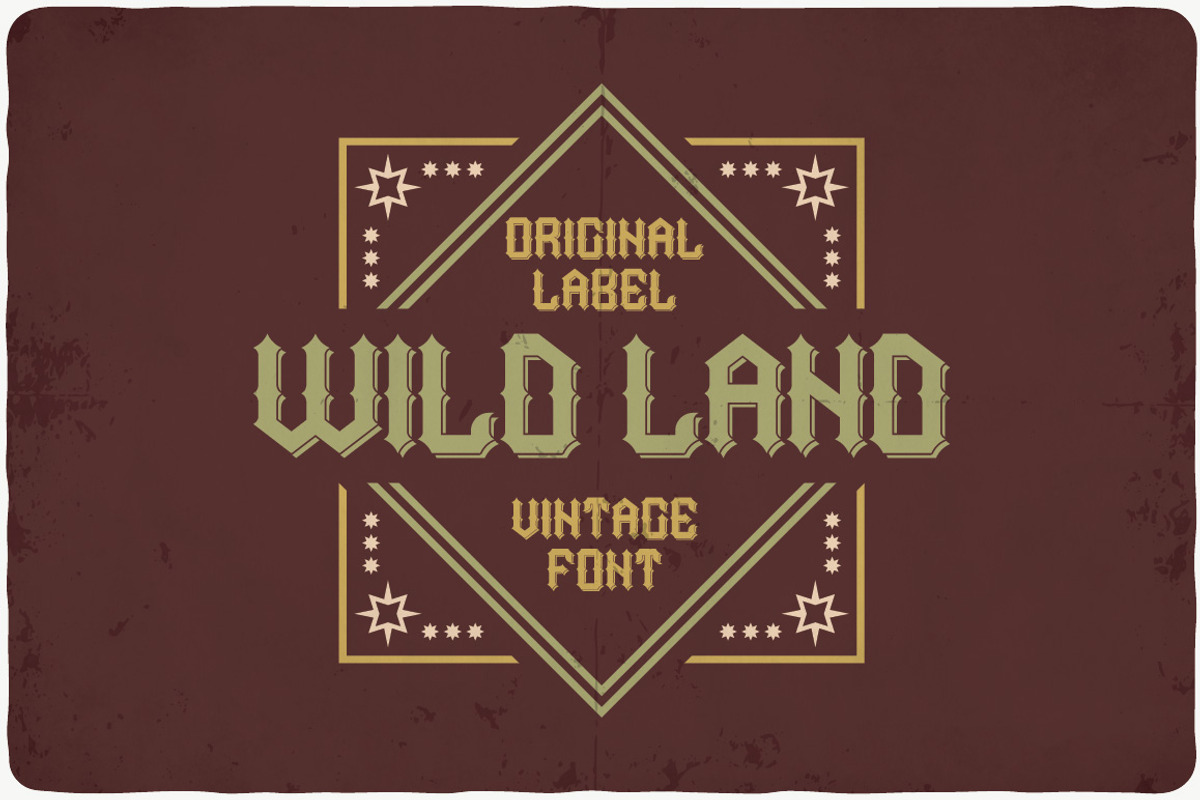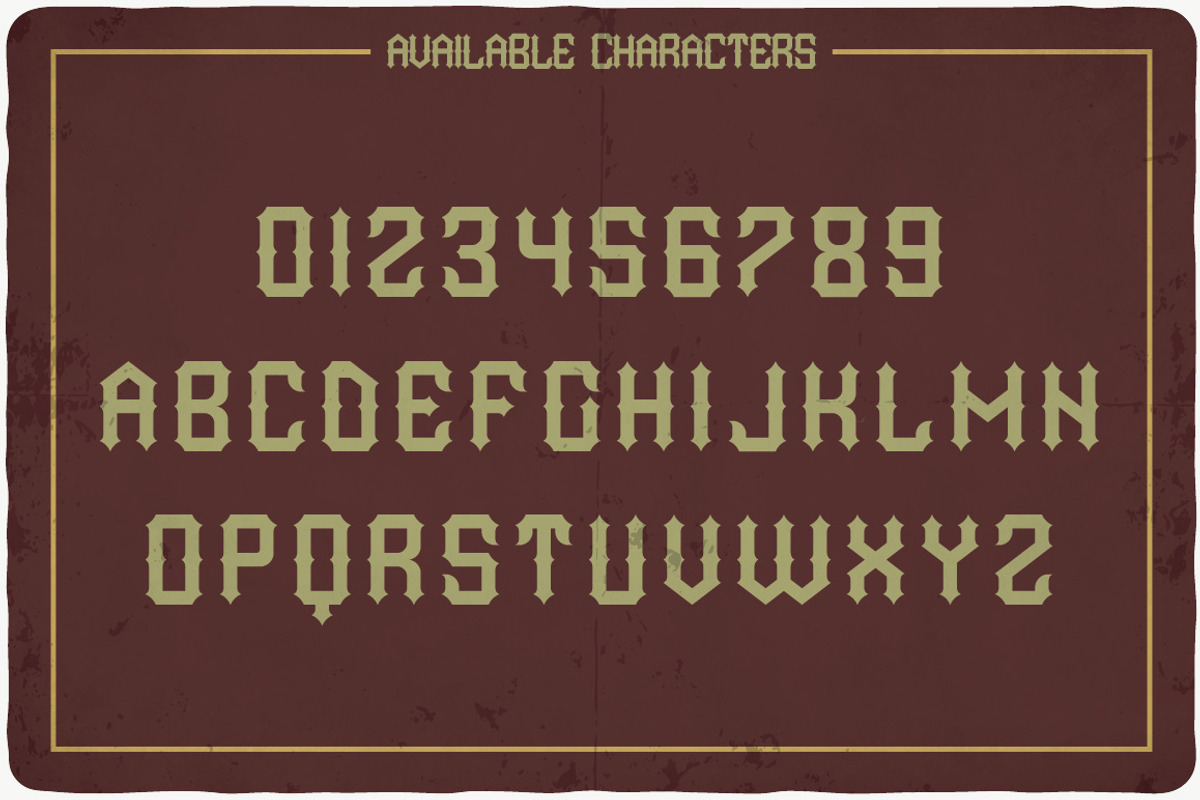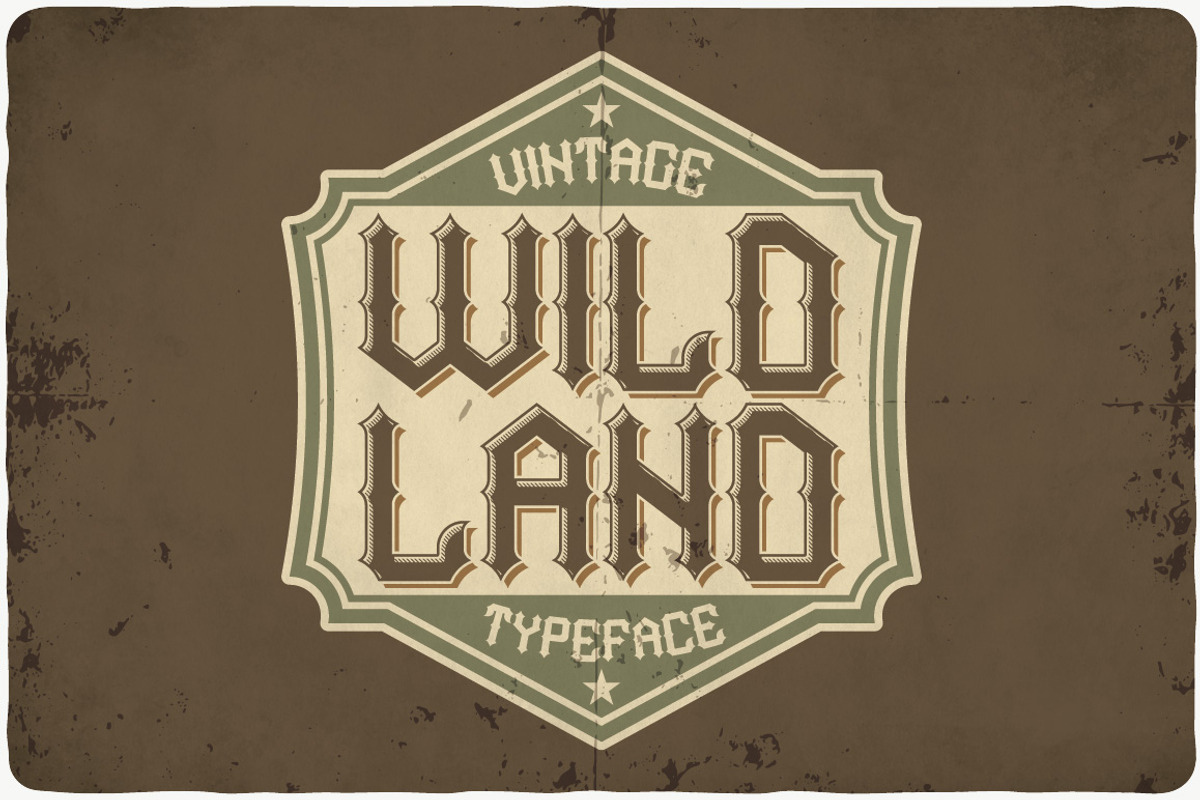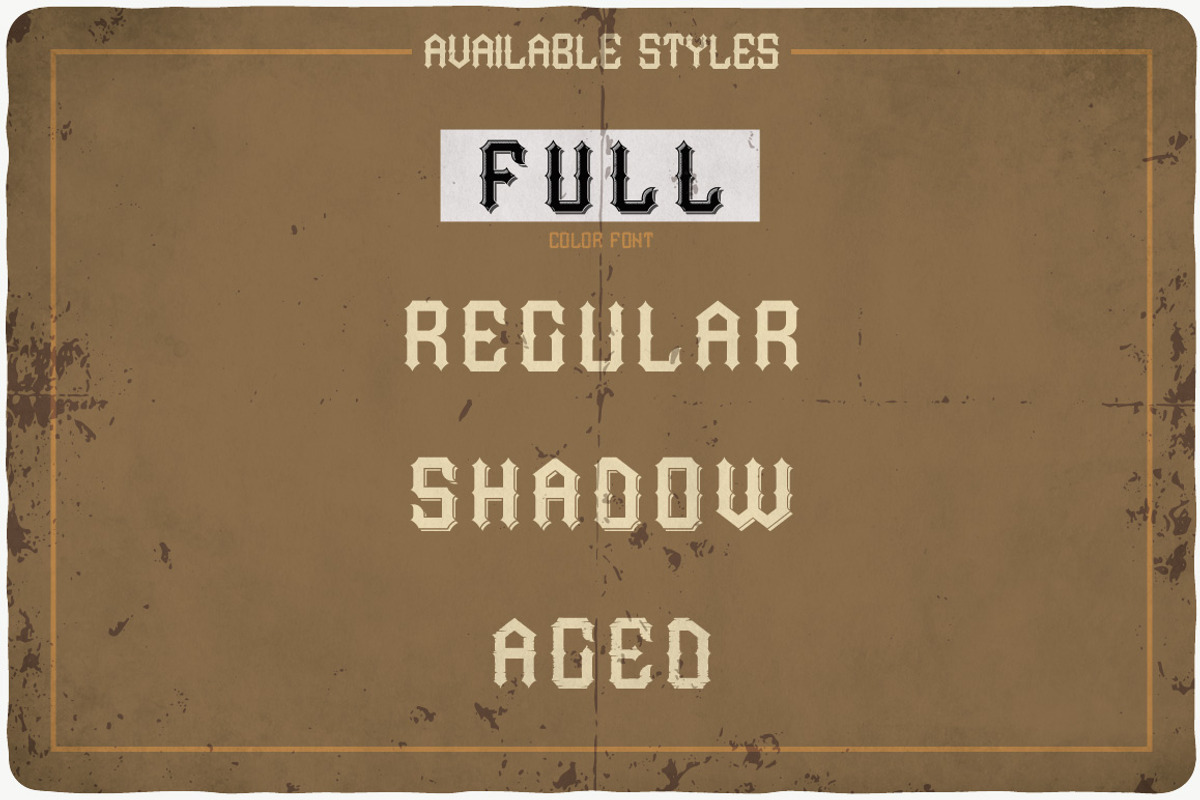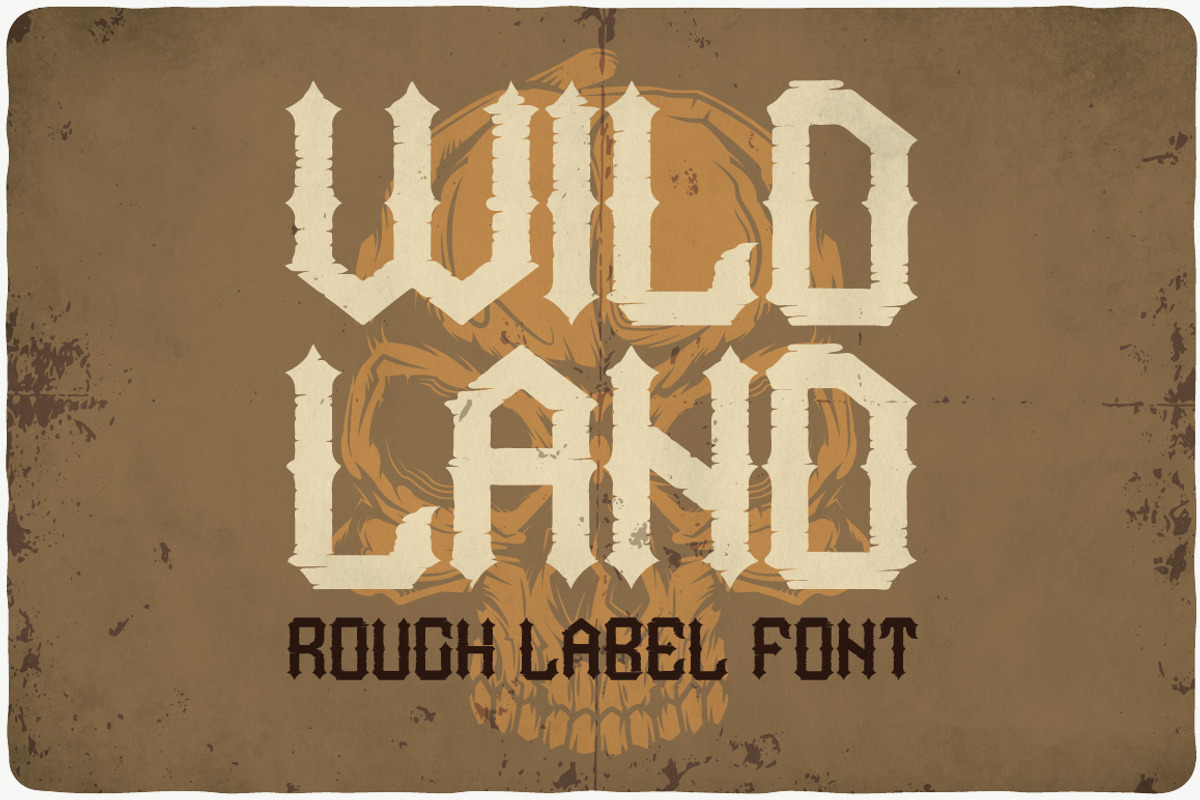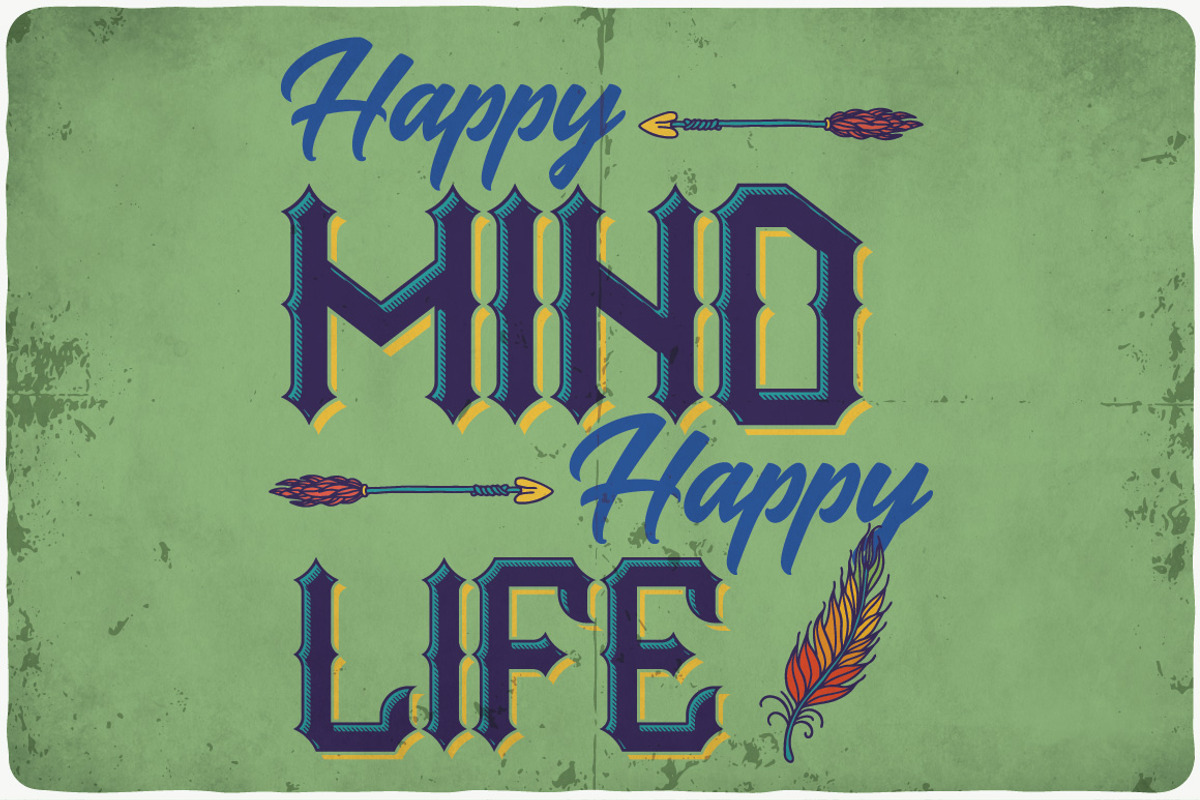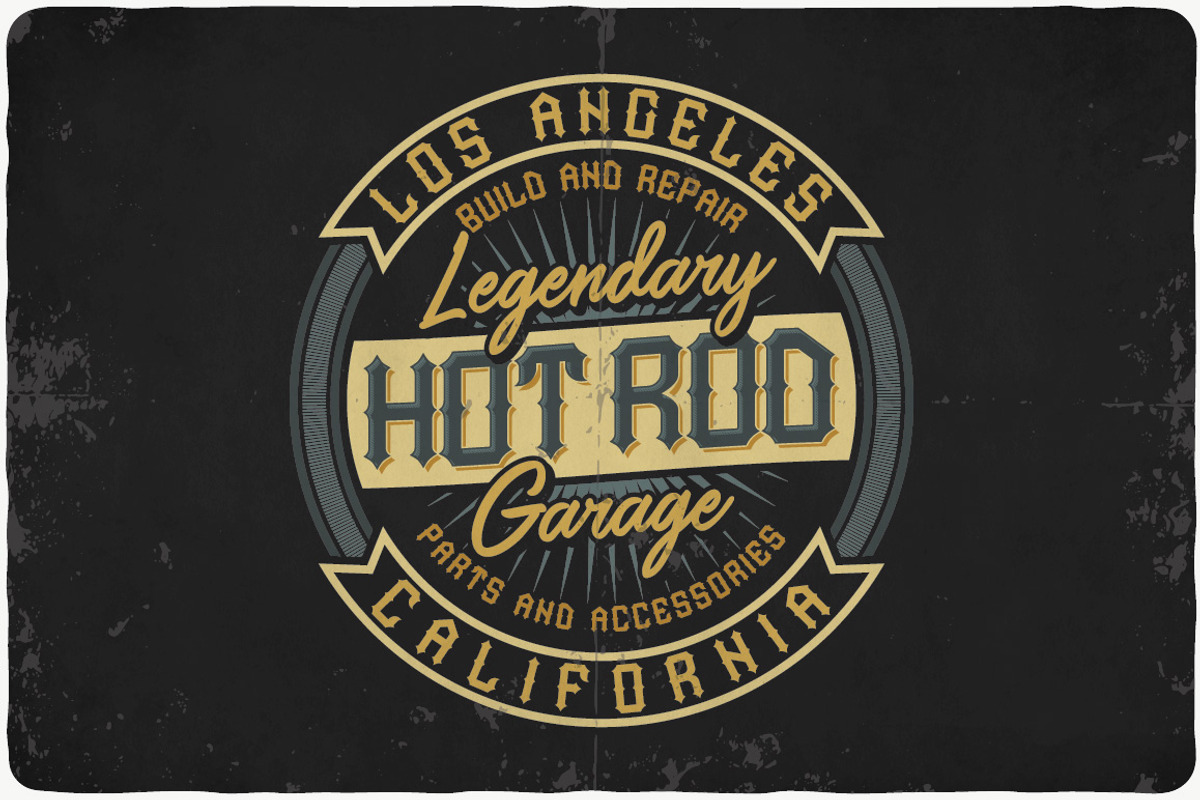
Wild Land typeface
Introducing a vintage look label typeface named "Wild Land". This typeface includes four styles, for sample look at 5th preview. Typeface will good viewed on any yours design.
- This typeface includes four styles, for sample look at 5th preview.
Why Wild Land typeface is worth a look
Wild Land typeface by VozzyStock fits naturally into Branding, posters, packaging, typography.